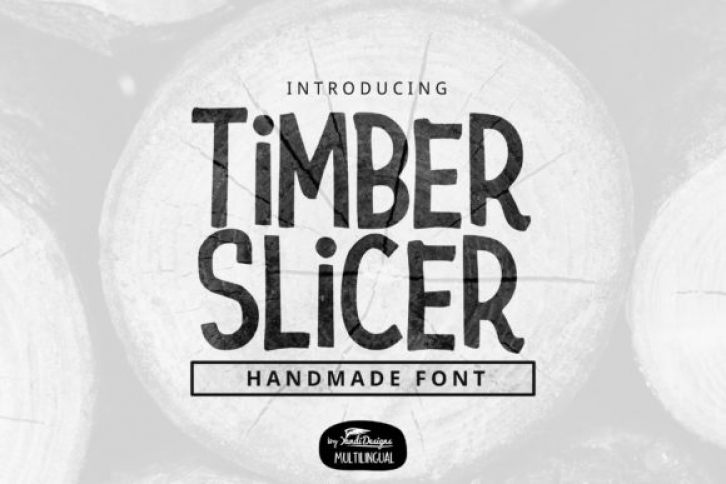
Timber Slicer is a cute and quirky display font. Lovely and childish, this font will look absolutely gorgeous on a variety of school projects or informal design ideas.